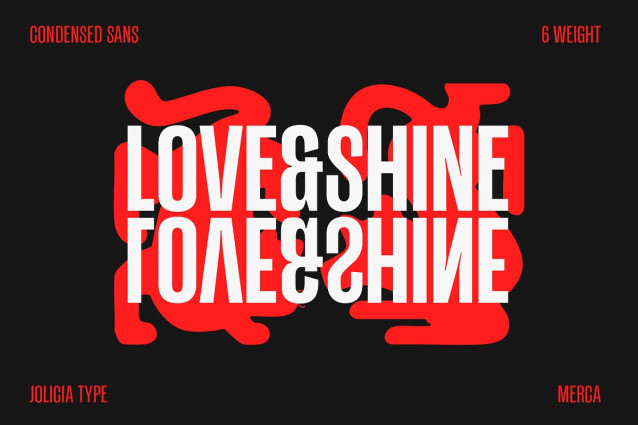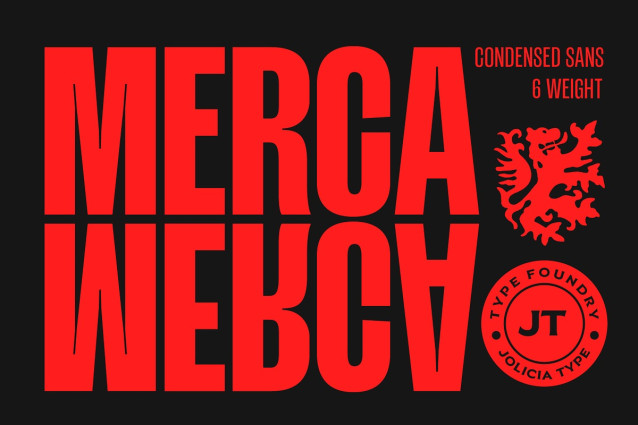
Merca Font
Merca Font is a sharply condensed typeface built for bold visual impact. With its narrow proportions, tall stance, and uncompromising vertical structure, Merca delivers a commanding headline presence while maintaining clean readability. Designed for brands that need to speak direct, strong, and unapologetically, Merca pushes a powerful typographic tone, assertive in posture, precise in rhythm, and visually dominant in any layout. The minimal contrast and compact width allow maximum messaging in limited space, making every word feel urgent, modern, and high-impact.